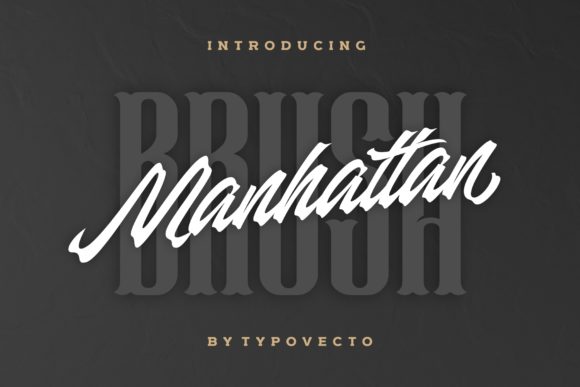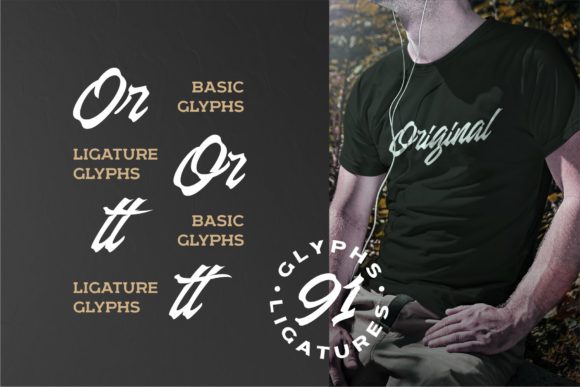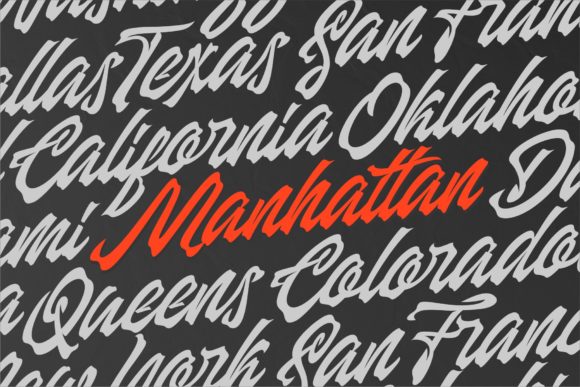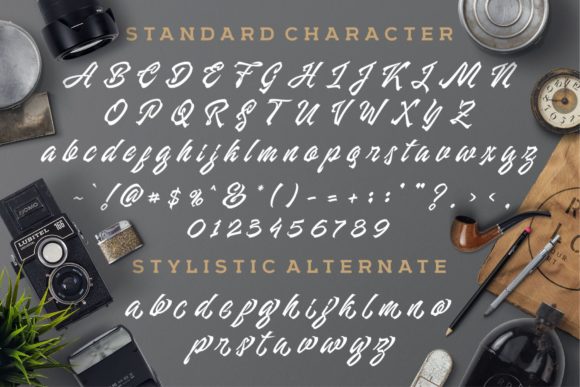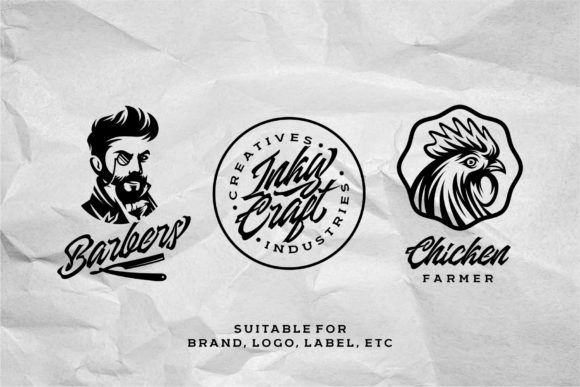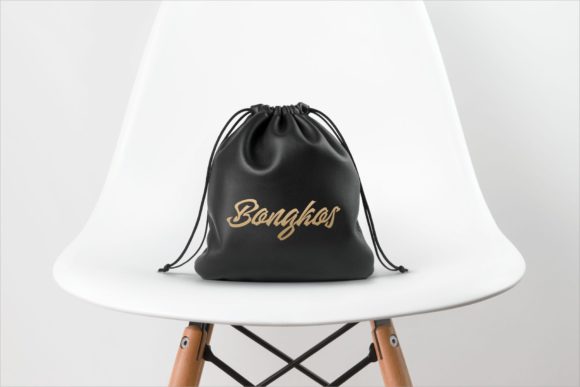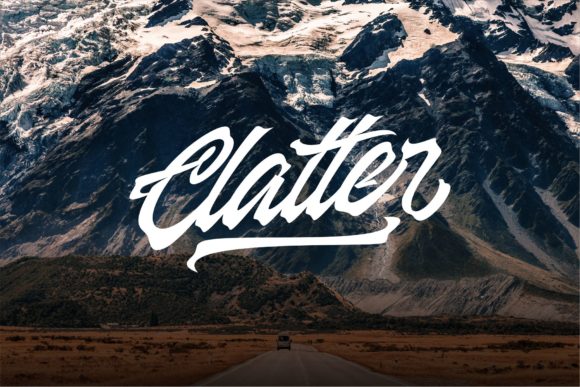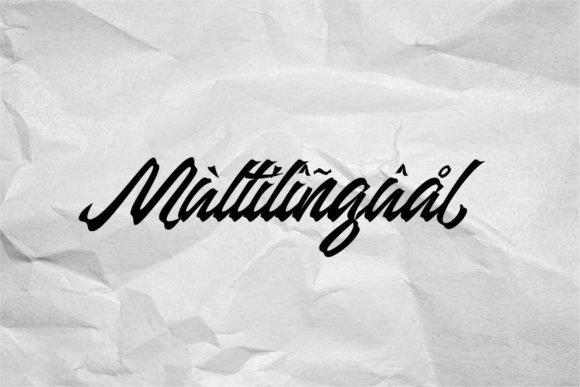
Manhattan Brush Font
About Manhattan Brush Font
Manhattan Brush is a bold modern script font with a lovely flowing style. Get motivated by its contemporary charm!